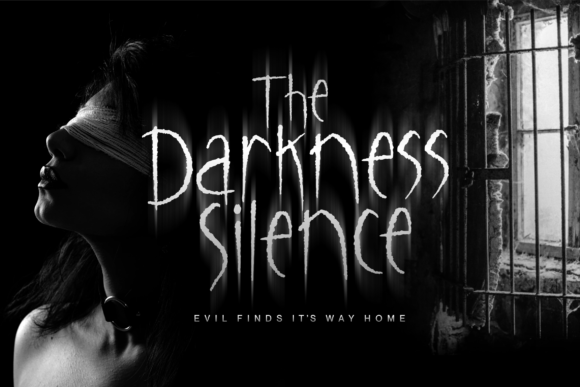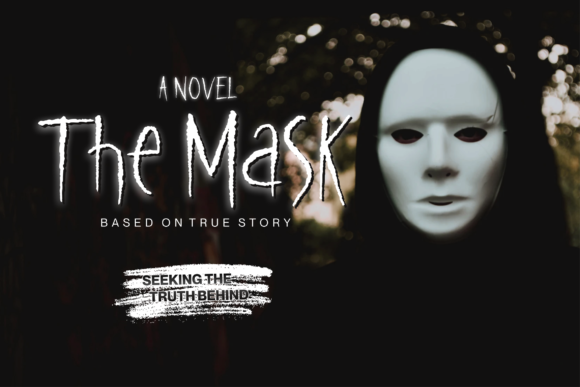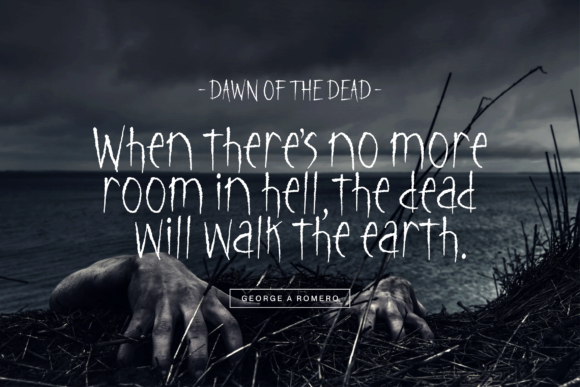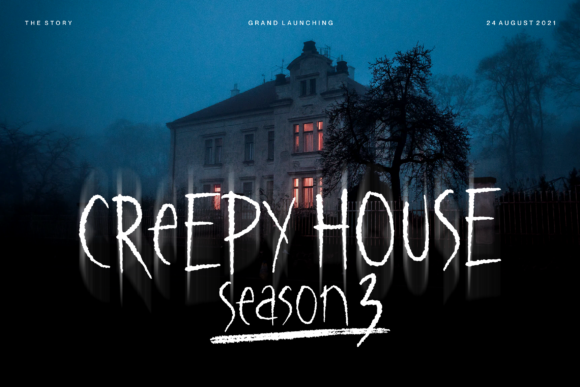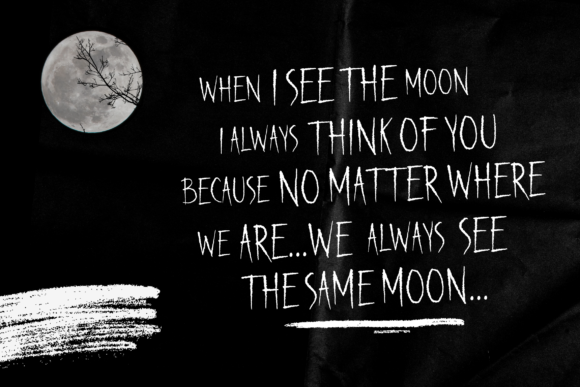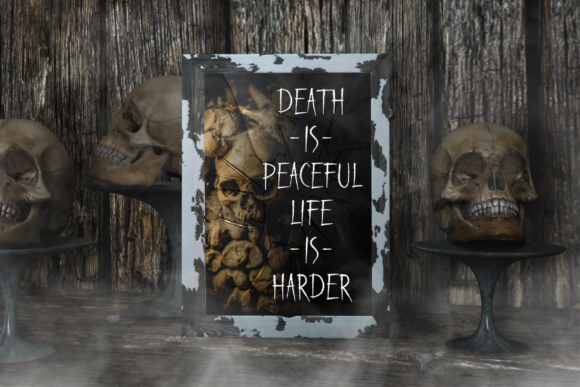
Bleakfall Font: The Ultimate Addition to Your Halloween Designs
As a designer or crafter, you’re always on the lookout for unique and eye-catching elements to add to your projects. When it comes to Halloween designs, you want a font that will make your creations stand out from the rest. That’s where Bleakfall Font comes in – a creepy looking display font that’s sure to elevate your Halloween designs to the next level.
What is Bleakfall Font?
Bleakfall Font is a specially designed display font that’s perfect for creating spooky and eerie designs. Its creepy and rugged appearance is sure to add a touch of horror to any project. Whether you’re working on a Halloween-themed poster, invitation, or social media graphic, Bleakfall Font is the perfect addition.
Why Choose Bleakfall Font?
So, what makes Bleakfall Font so special? Here are just a few reasons why you should consider adding it to your Halloween designs:
- Unique and Eye-Catching: Bleakfall Font has a one-of-a-kind design that’s sure to grab attention. Its creepy appearance will instantly make your designs stand out from the rest.
- Perfect for Halloween: Whether you’re creating designs for Halloween parties, trick-or-treat bags, or spooky decorations, Bleakfall Font is the perfect choice.
- High-Quality: Bleakfall Font is a high-quality font that’s designed to look great on any device. Whether you’re printing your designs or displaying them online, Bleakfall Font will look amazing.
How to Use Bleakfall Font in Your Designs
Using Bleakfall Font in your designs is easy. Here are a few tips to get you started:
- Pair it with Other Fonts: Bleakfall Font looks great when paired with other fonts. Try pairing it with a clean sans-serif font for a bold and eye-catching look.
- Use it for Headlines: Bleakfall Font is perfect for headlines and titles. Use it to create bold and attention-grabbing headings that will draw in your audience.
- Add it to Your Social Media Graphics: Bleakfall Font is a great addition to any social media graphic. Use it to create spooky and eye-catching graphics that will stand out on your followers’ feeds.
Tips for Creating Spooky Designs with Bleakfall Font
Here are a few tips for creating spooky designs with Bleakfall Font:
- Use Dark Colors: Dark colors like black, purple, and orange are perfect for creating spooky designs. Pair Bleakfall Font with these colors for a bold and eerie look.
- Add Spooky Graphics: Bleakfall Font is even more effective when paired with spooky graphics like bats, spiders, and jack-o-lanterns. Use these graphics to create a cohesive and spooky design.
- Experiment with Different Styles: Bleakfall Font looks great in a variety of styles. Experiment with different styles, such as bold and italic, to create a unique and eye-catching design.
Bleakfall Font is a creepy and eye-catching display font that’s perfect for adding to your Halloween designs. Its unique and rugged appearance is sure to make your designs stand out from the rest. With its ease of use and high-quality design, Bleakfall Font is a must-have for any designer or crafter looking to create spooky and eye-catching designs.